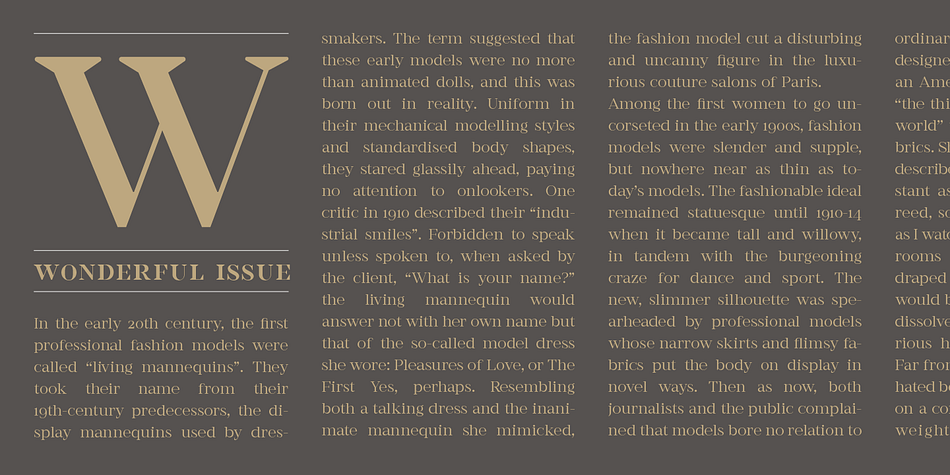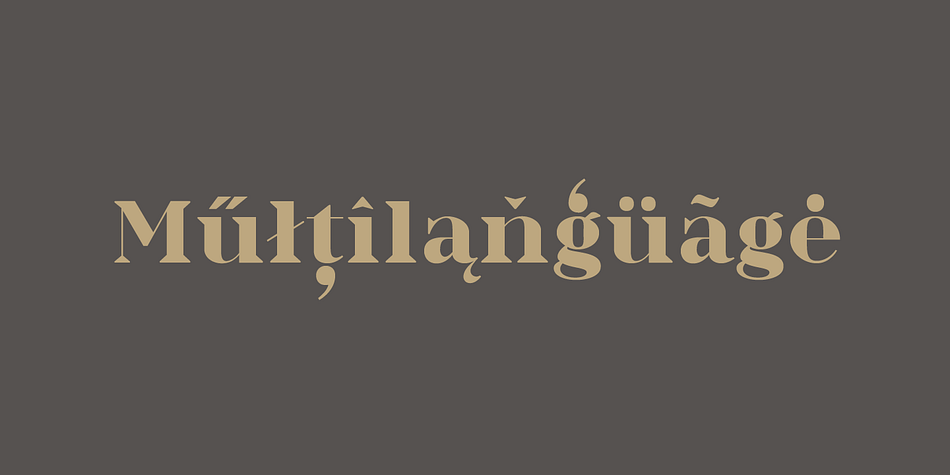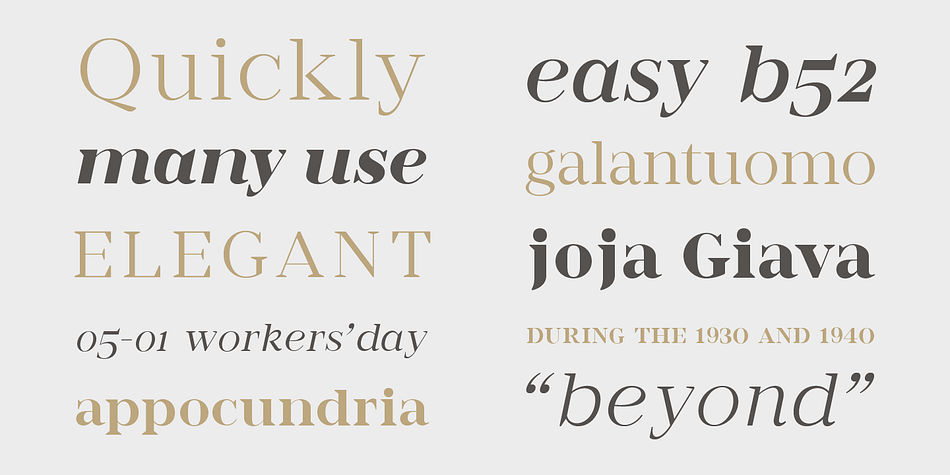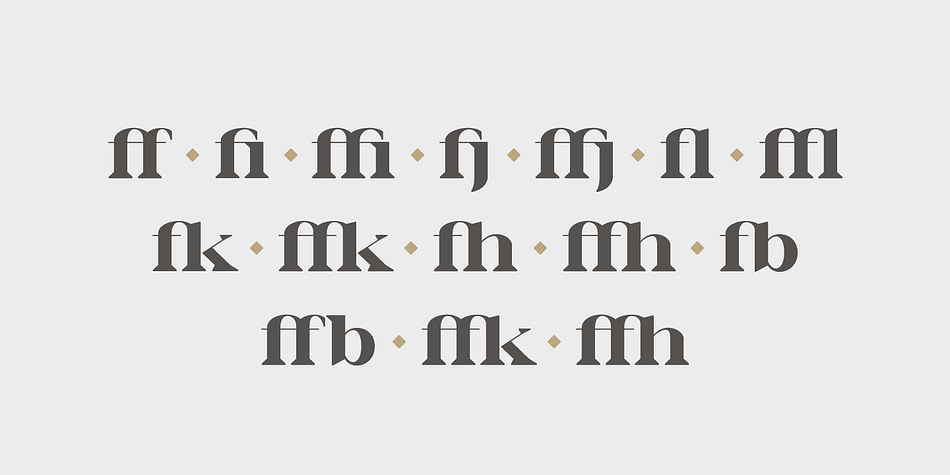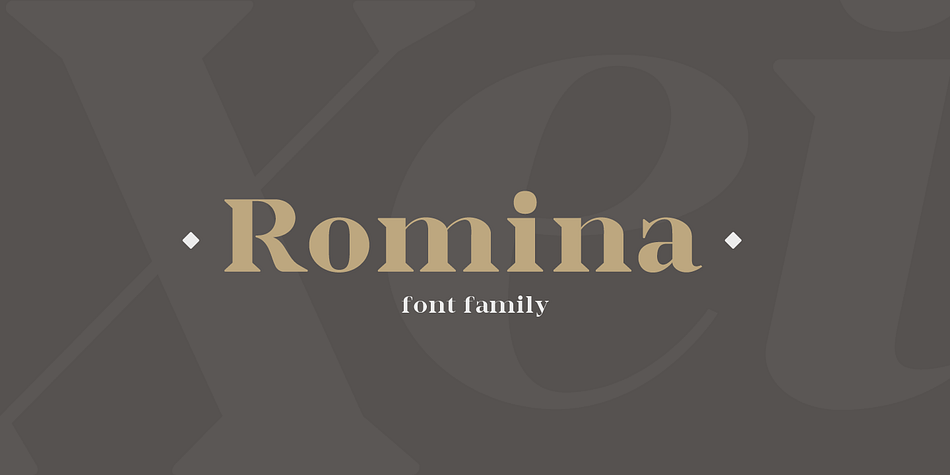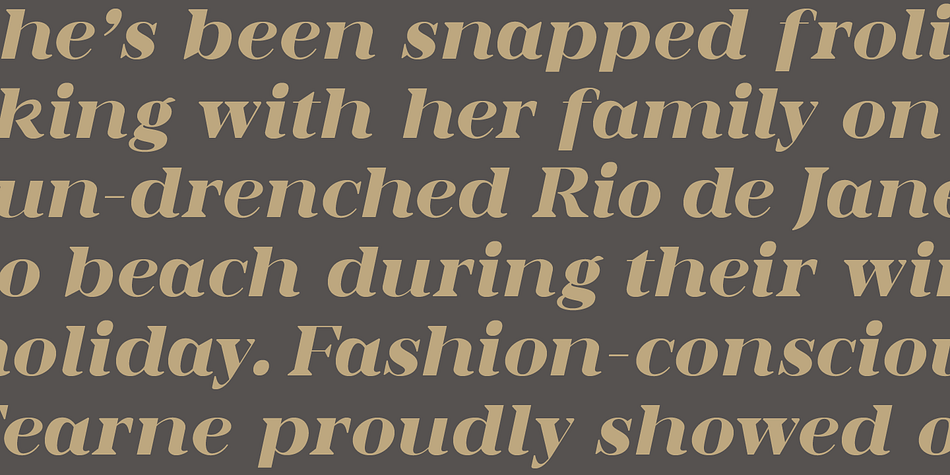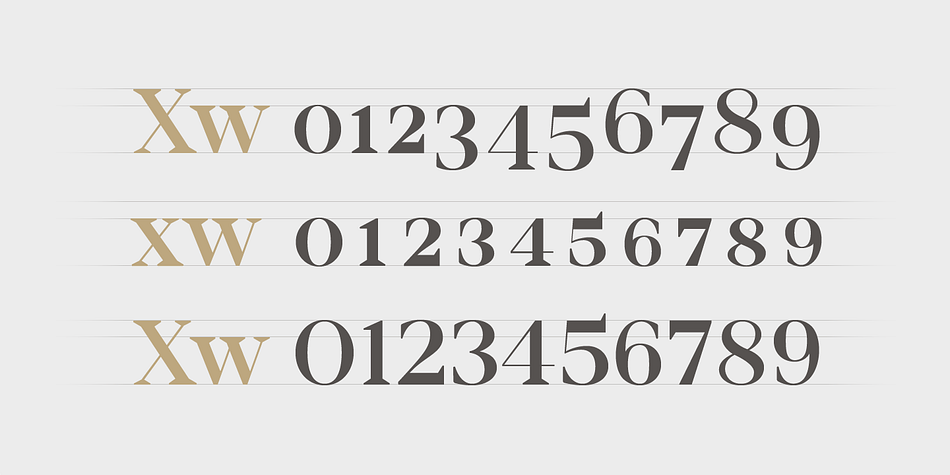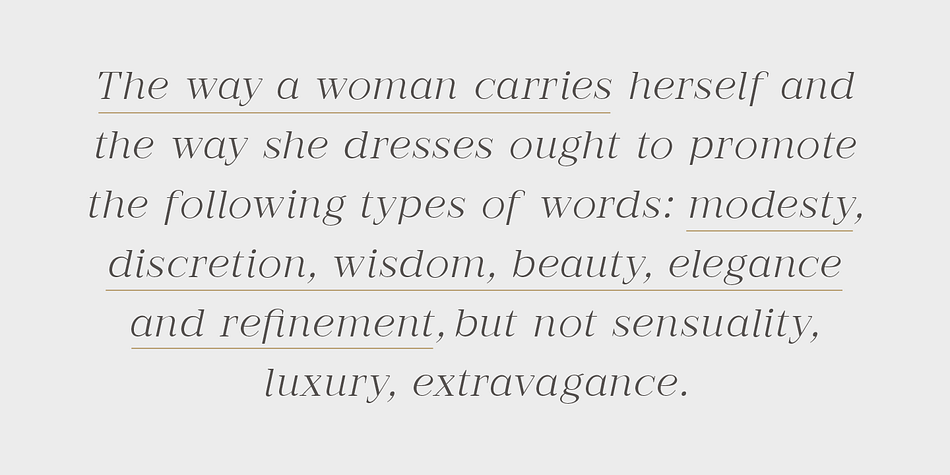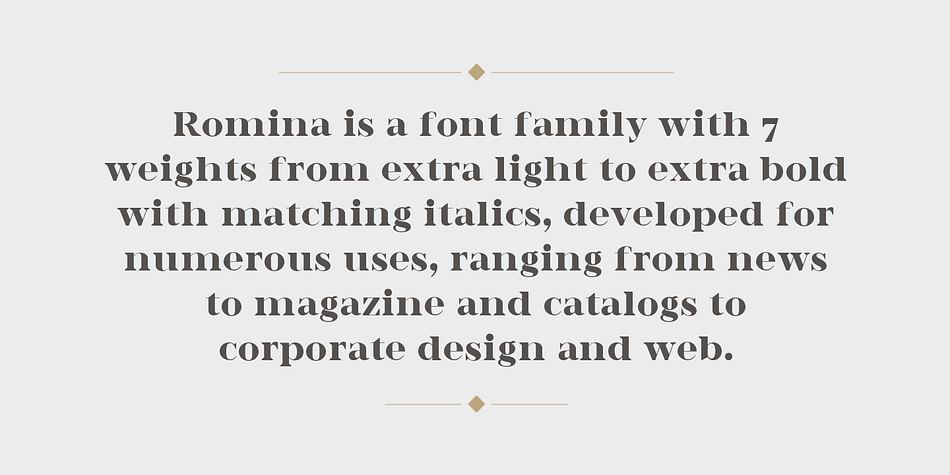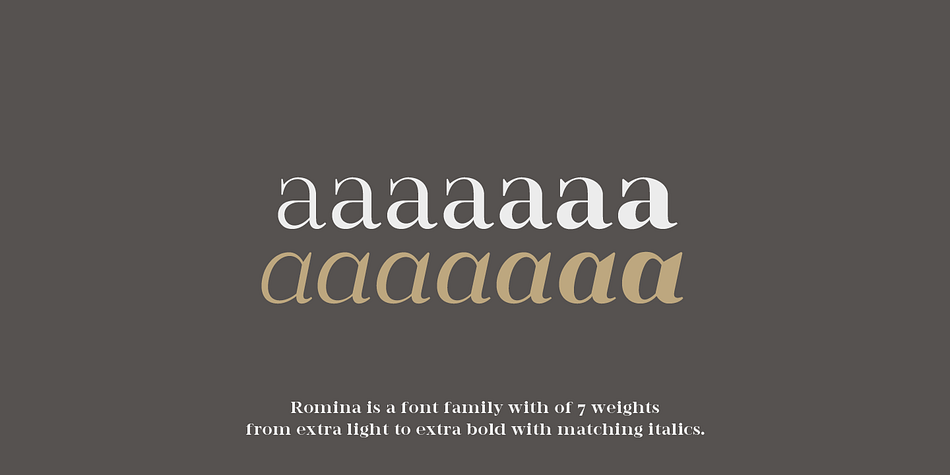
Designed by Rosario Nocera, Romina is a serif font family. This typeface has fourteen styles and was published by Rosario Nocera.
Romina is a neoclassical font family with a hight contrast, developed for numerous uses, ranging from news to magazine and catalogs to corporate design and web. The Romina family consists of 7 weights from extra light to extra bold with matching italics. Romina provides advanced typographical support with features such as ligatures, small capitals and case sensitive forms but also some dingbat, special glypfhs and the others opentype features.